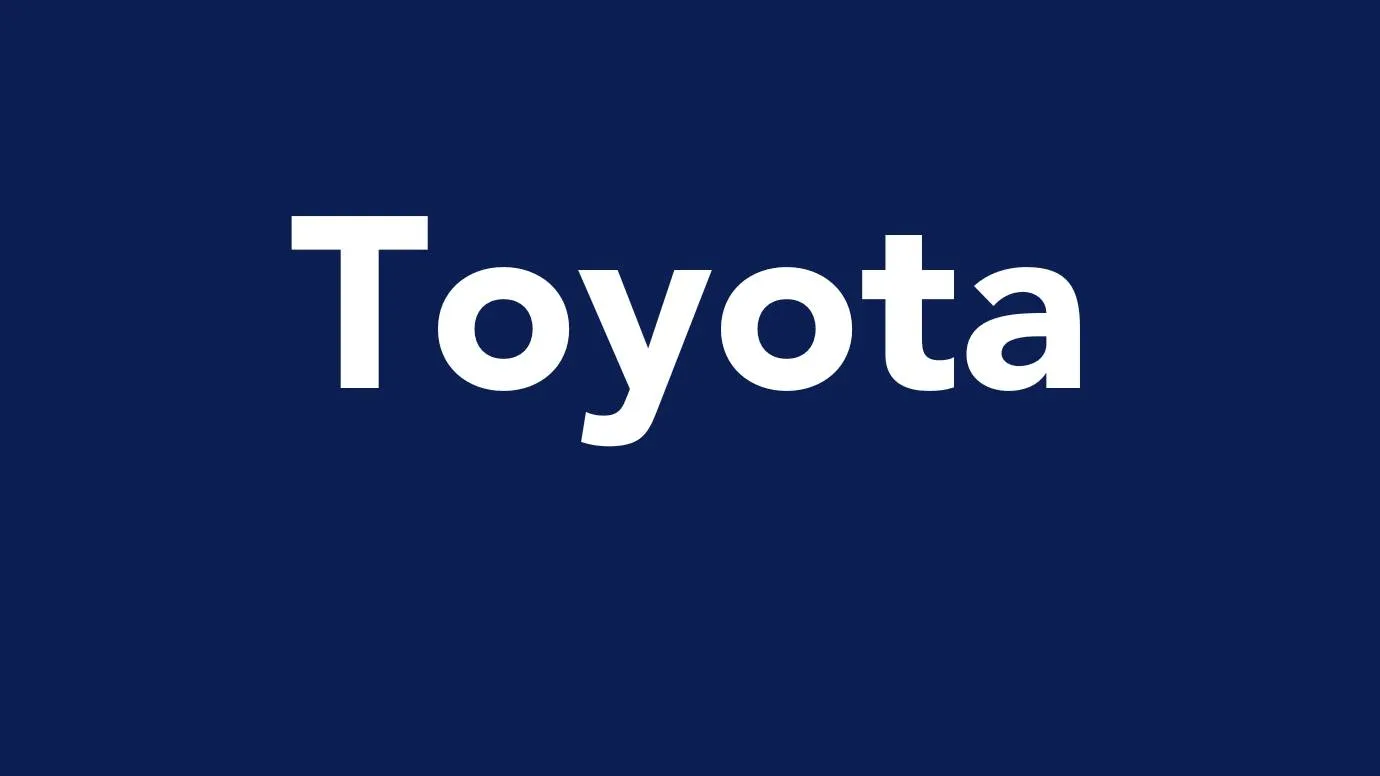
Toyota Font was originally designed on the base of the Toyota Company logo. Avenir Font is used for the development of this stunning and charming font. Now, It is most popular all over the world due to its keen features.
Toyota Font Family
NameToyota Font
DesignerMr. Adrian Frutige
TypeSans-serif